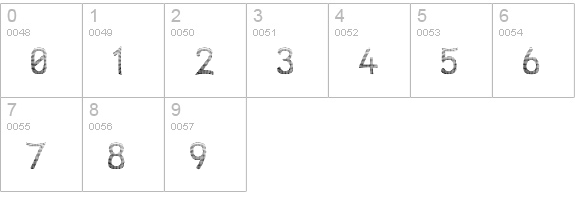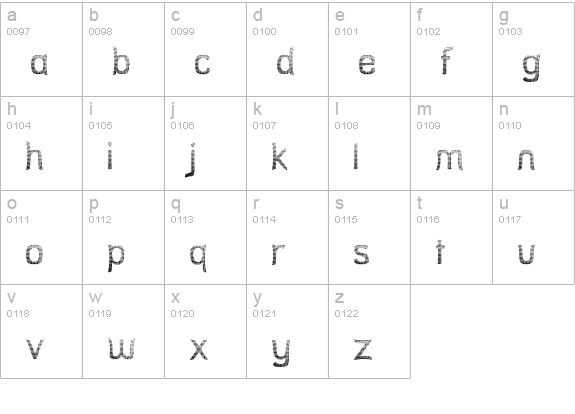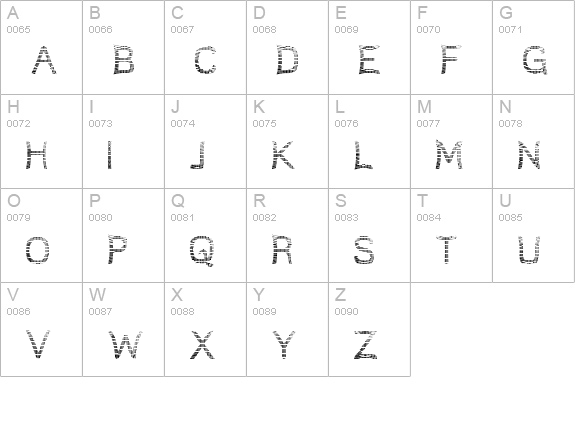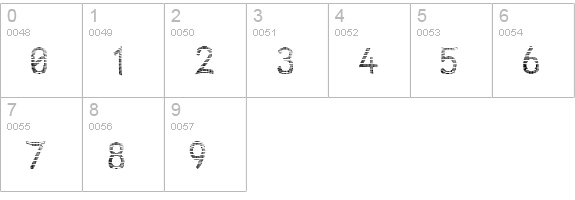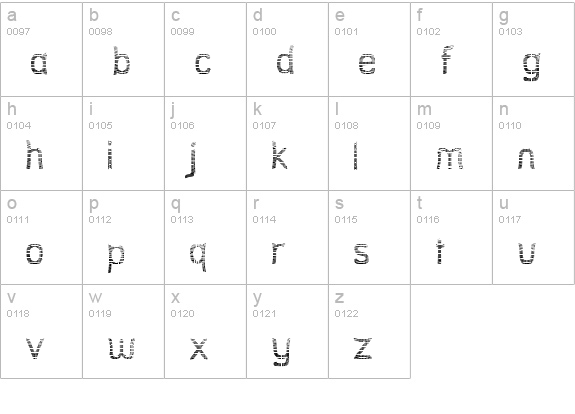
Street Net Font Details
Street Net font is a bold and modern typeface designed for urban and street-inspired designs. Its edgy and dynamic look makes it perfect for posters, logos, and other graphic projects that aim to make a statement. With its sharp lines and contemporary style, Street Net font captures the essence of city life and urban culture. What's even better is that Street Net font is available for free download at FontsMarket.com. This means you can easily access this striking font and use it in your projects without any cost. Whether you're working on a streetwear brand, a hip-hop album cover, or a graffiti-inspired artwork, Street Net font will add a touch of urban flair to your designs. Download it now and let your creativity run wild with this awesome free font!